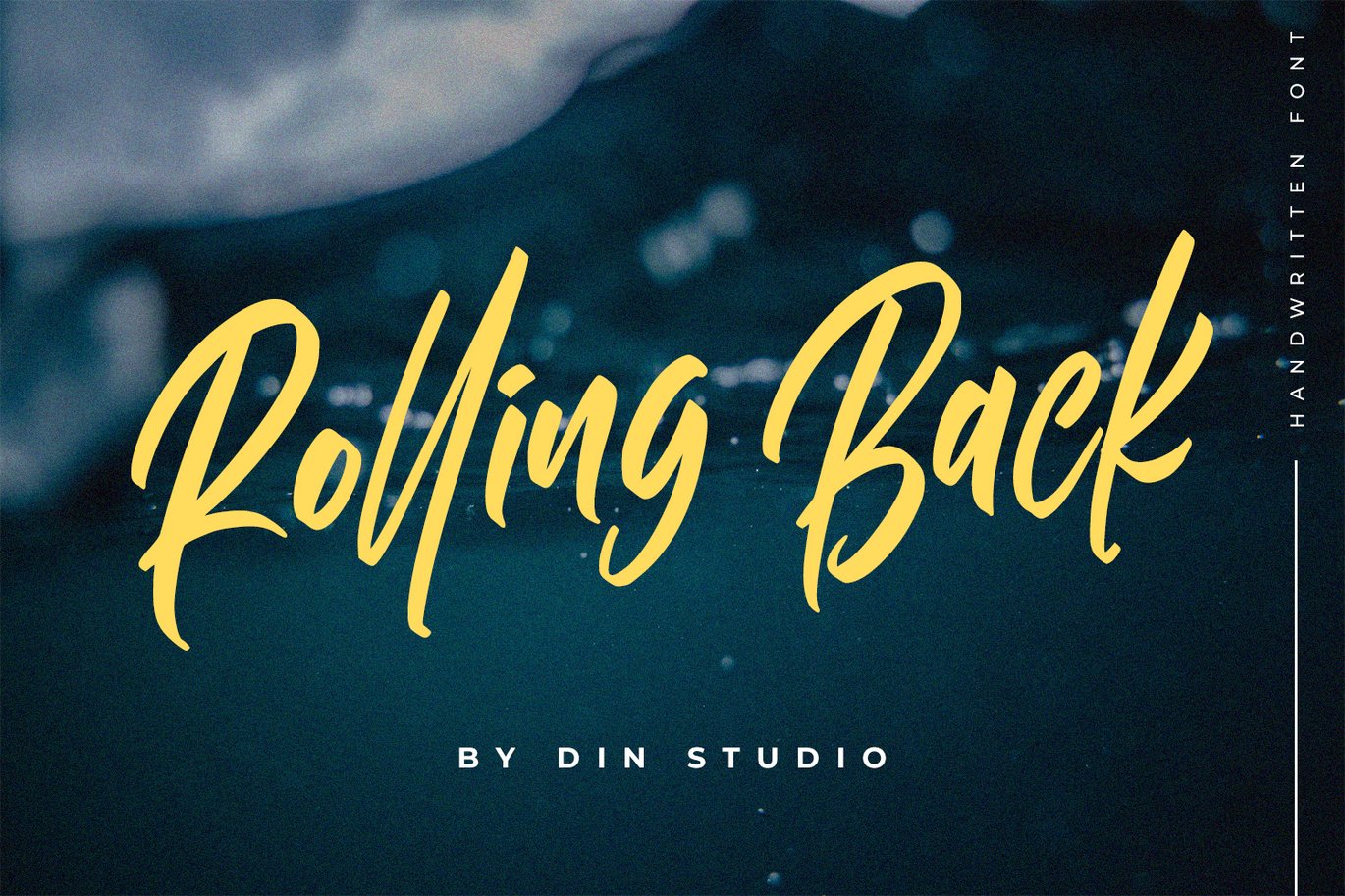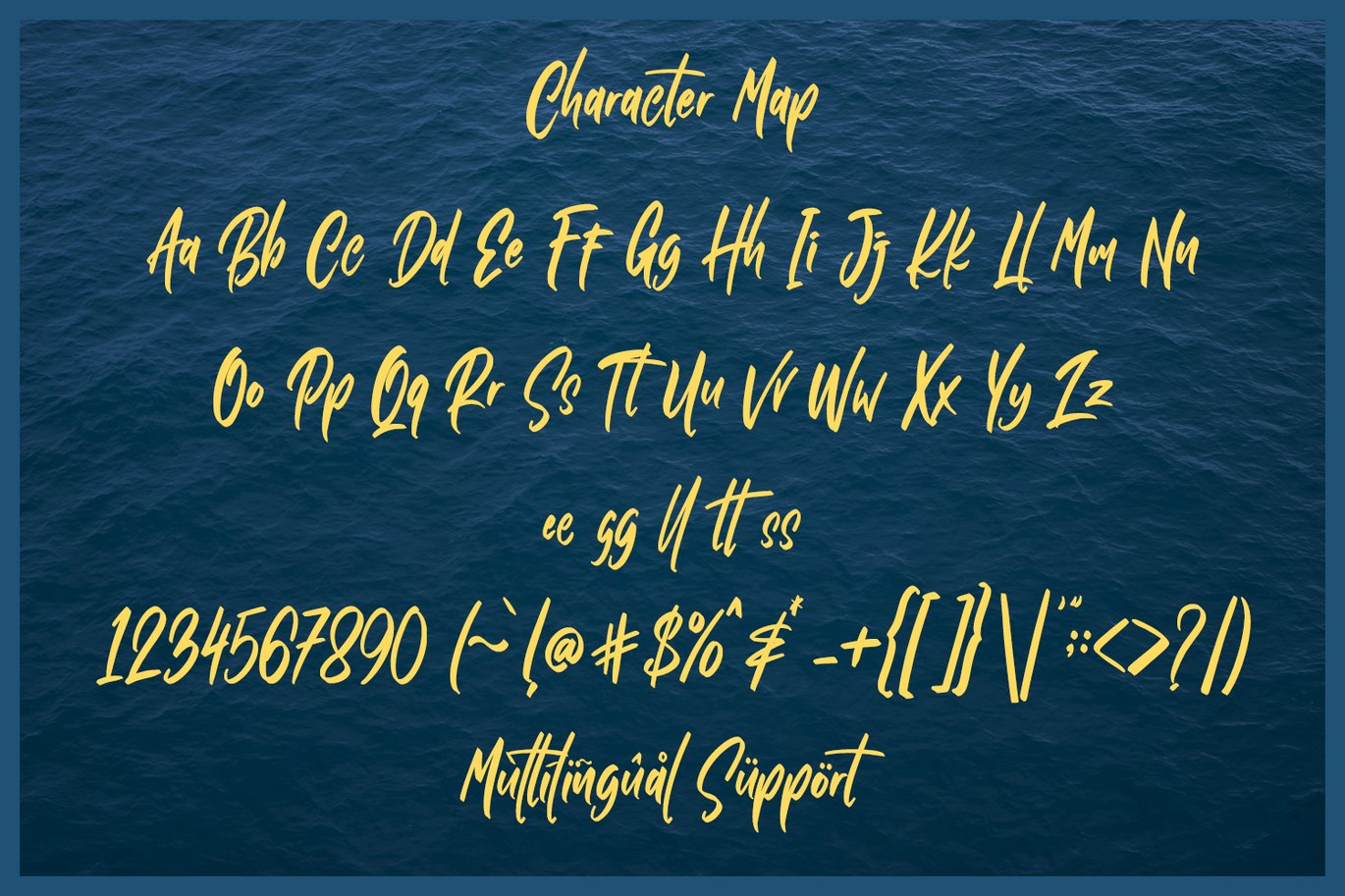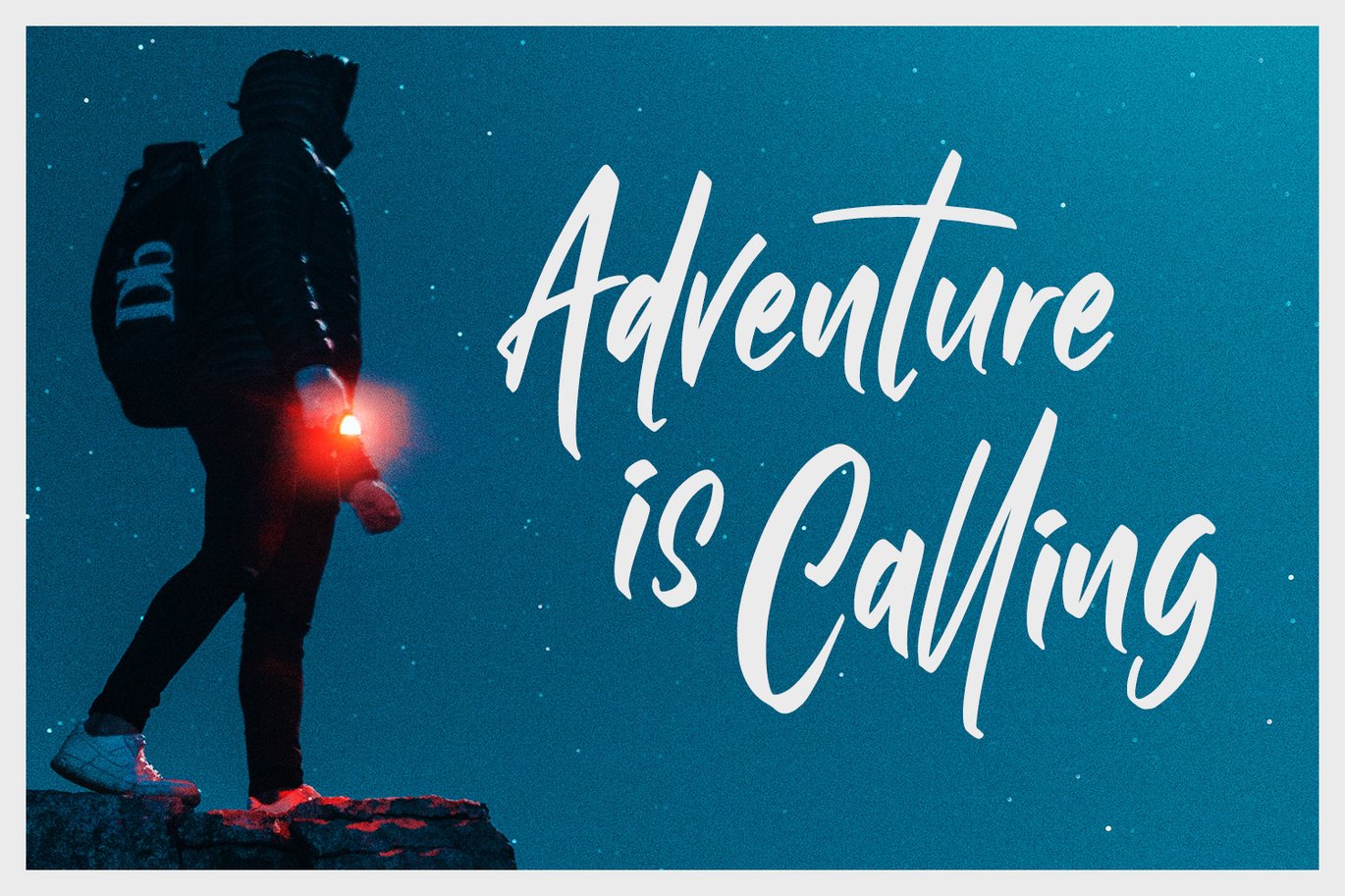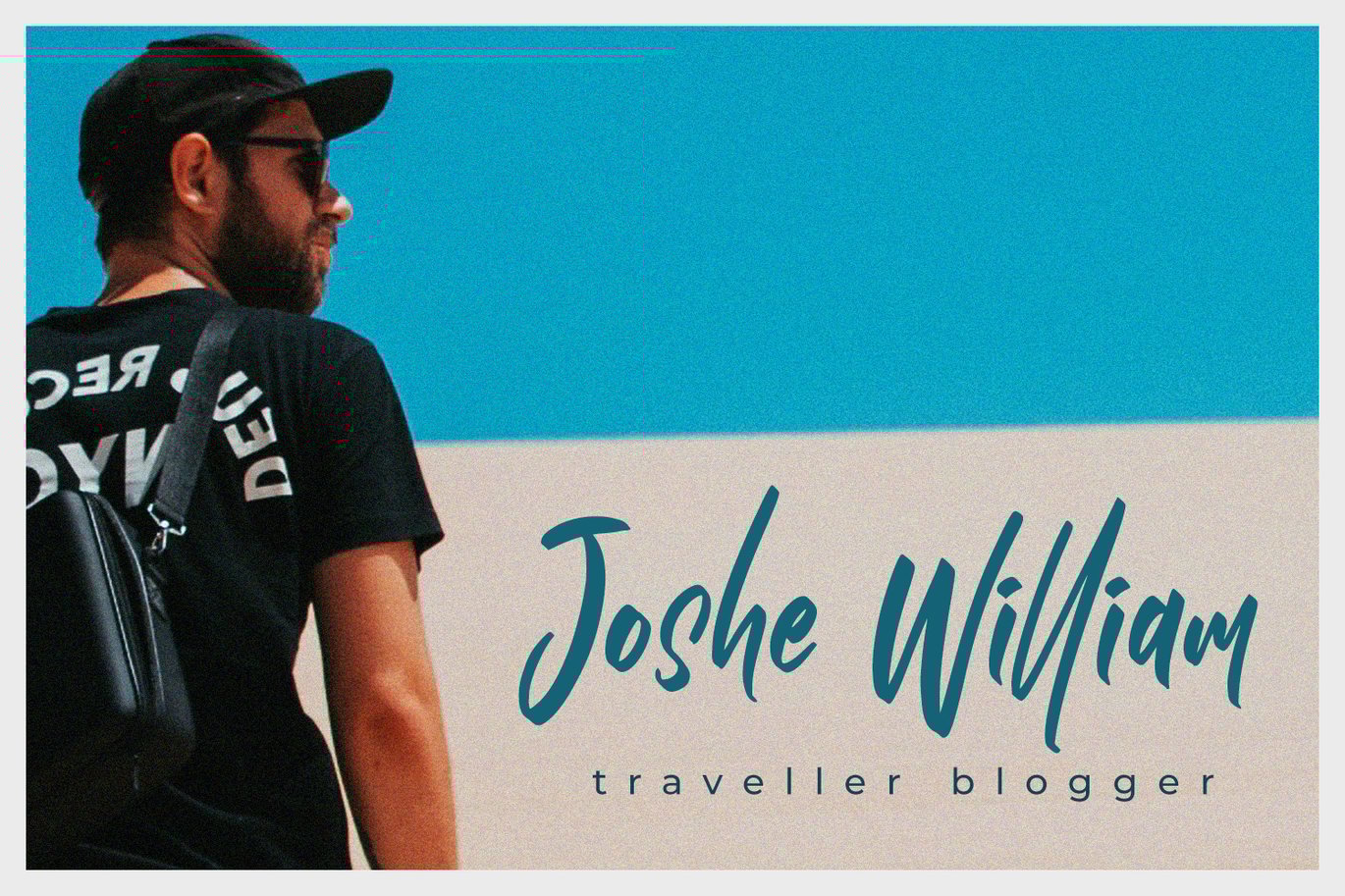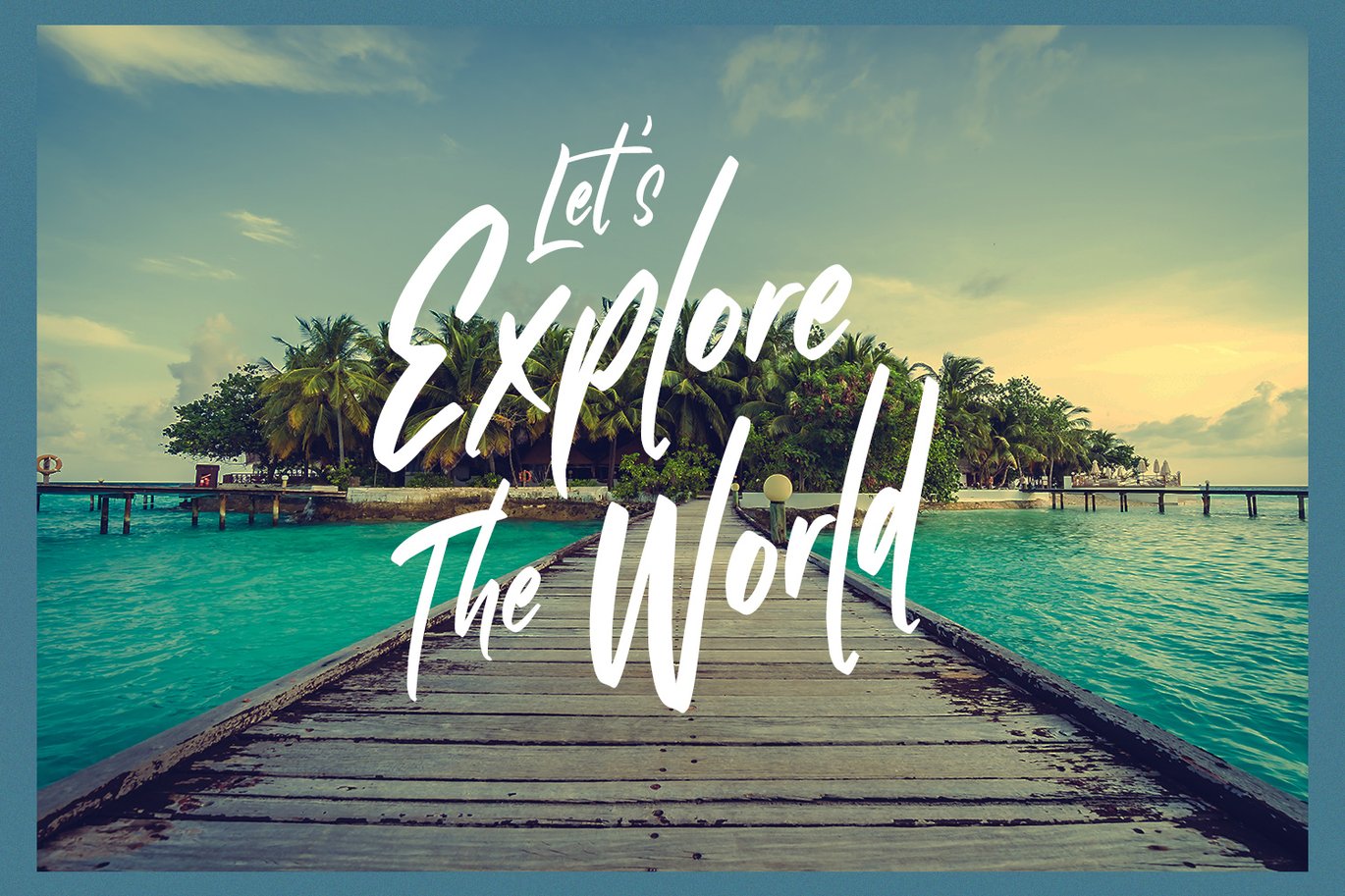
Rolling Back- Casual Font
Introducing Rolling Back Font. Made with naturally handwritten. Rolling back font has a casual style. This font is suitable for any design like branding, quotes, t-shirt printing and etc.
- Accents (Multilingual Characters)
- Beautiful ligatures
- Numerals and Punctuations (OpenType Standard)